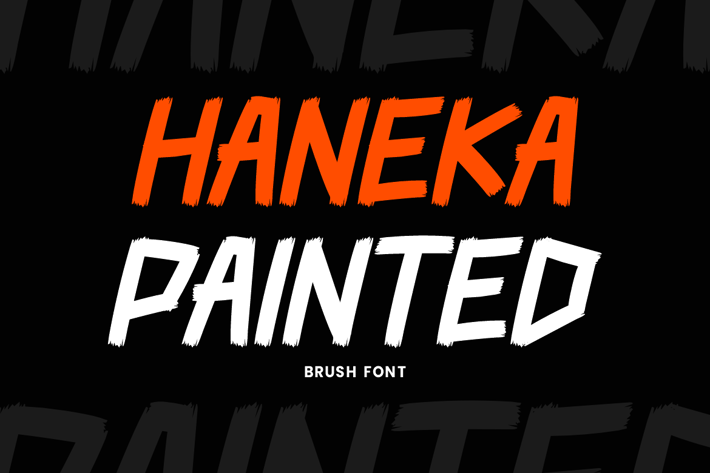
Haneka Painted - Brush & Marker Font
Haneka Painted - Brush & Marker Font is unique . Ready to use for your design like labeling, movie sceen, poster, movie title, gigs, album covers, logos, and much more.